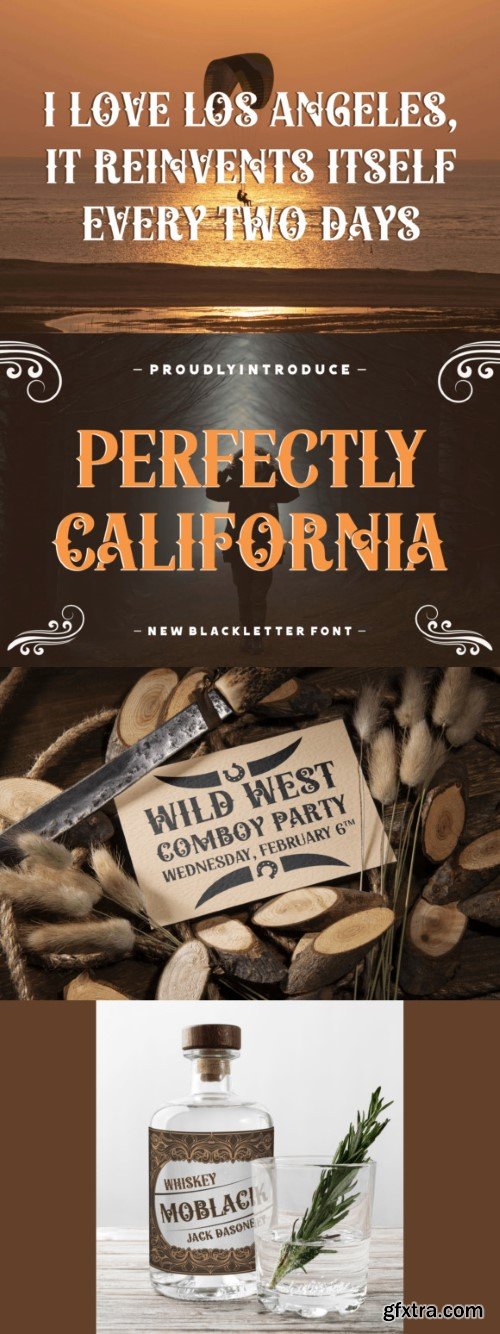
Perfectly California is an elegant blackletter font that blends traditional gothic influence with modern sophistication. Its smooth, flowing lines and intricate details evoke a sense of timeless beauty, making it perfect for high-end branding, event invitations, and elegant typographic projects that exude California charm.